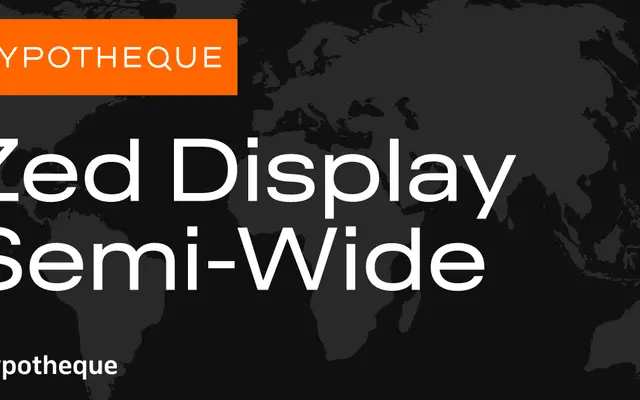
Zed Display Semi-Wide
The semi-wide cut of Typotheque's Zed system, a geometric sans spanning nine widths, two optical styles and a text grade across an unusually large total family.
Zed Display Semi-Wide sits within one of the most systematically complete sans families in contemporary type design, offering nine widths from Extra-Compressed to Extra-Wide, each in nine weights from Hairline to Black with upright, slanted and backslanted styles. The Display branch is built for large-scale settings, while Zed Round offers softened terminals and Zed Text handles smaller sizes. Each style is named after a city, from Amsterdam (Hairline) through to Zaragoza (Black Slanted), giving the system a memorable navigational logic.
Part of the Zed system, a large-scale geometric sans family with multiple widths and optical sizes; the Display subfamilies are optimised for large-scale use with sharp, structured letterforms.